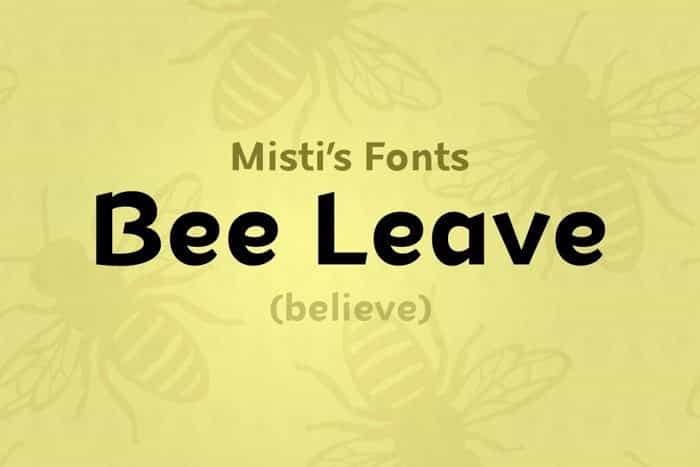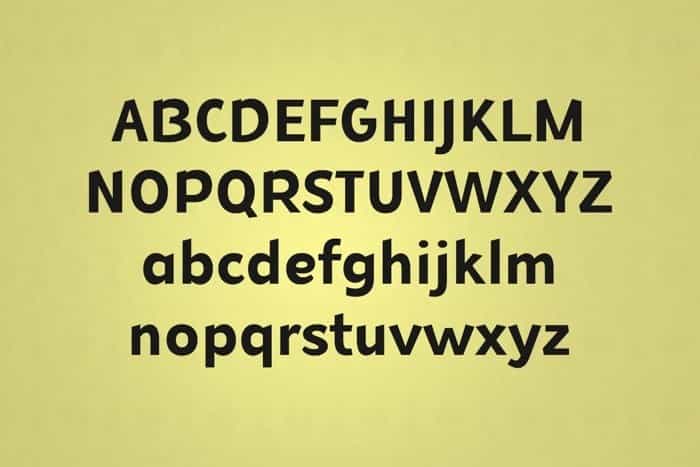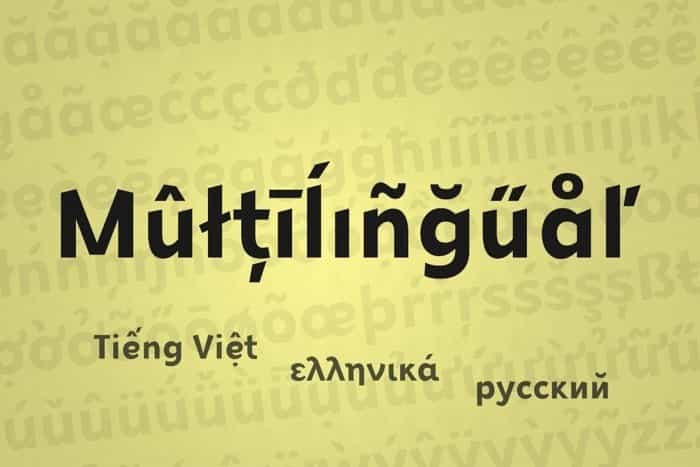
Bee Leave is a distinctive hand-lettered sans-serif typeface that complements and makes the projects look different. This font is characterized by the strict structure, but at the same time, it is able to express the feeling of friendliness and light-heartedness.